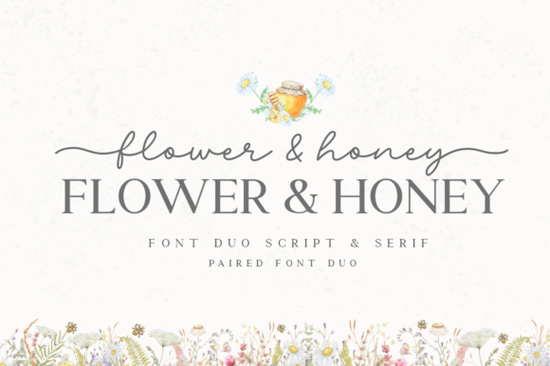
If you're looking for a cheerful, hand-lettered duo that brings warmth and personality to your designs, the Flower & Honey Font might be just what your creative toolkit needs. Designed as a complementary pair, these fonts work beautifully together or on their own making them versatile for everything from greeting cards and branding to printable wall art and product packaging.
What sets this set apart is its thoughtful pairing: one font leans slightly bolder and more structured, while the other offers a lighter, breezy script. Both include swashes, alternate characters, and decorative glyphs accessible through PUA encoding, so you don’t need advanced design software to unlock their full potential. Just install the font, open your favorite program (like Canva, Adobe Illustrator, or even Word), and start experimenting with the extras built right in.
Who is this font best suited for?
The Flower & Honey Font shines in projects that call for approachability and charm. Think:
- Small business owners creating logo mockups or social media graphics
- Crafters designing vinyl decals, embroidery patterns, or sublimation prints
- Print-on-demand sellers personalizing mugs, tote bags, or journals
- Teachers making classroom decor or homeschool materials
Because the pair balances legibility with flair, it’s especially useful when you want something friendly but not overly fussy. It avoids the “too-cute” trap some script fonts fall into, offering enough structure to remain readable at smaller sizes.
How does it compare to other handwritten fonts?
If you’ve used fonts like Coconut Bay or Honeymoon Handwriting, you’ll notice Flower & Honey has a slightly more grounded baseline and consistent letter height, which helps with alignment in multi-line text. Unlike ultra-loopy scripts, it maintains clarity even in short paragraphs great for quotes or product descriptions.
For those who love romantic or botanical themes, it pairs well with designs featuring florals, bees, honey jars, or cottagecore aesthetics. And if you enjoy mixing typefaces, try combining it with clean sans-serifs for contrast, or layer it with textured backgrounds for depth.
What can you actually make with it?
Thanks to its dual-font structure and built-in alternates, Flower & Honey adapts easily across mediums:
- Wedding stationery: Use the lighter font for names and the bolder one for dates or RSVP details.
- Branding for cafes or bakeries: The warm, organic feel complements food-related businesses.
- DIY gift tags: Add a swash to the first letter of someone’s name for instant customization.
- Printable planners: Alternate characters help avoid repetitive-looking headers.
Because it includes PUA-encoded glyphs, you can access stylistic alternates without switching fonts mid-design a huge time-saver when batch-producing items for Etsy or local markets.
Tips for getting the most out of this font pair
Start simple. Use one font for headlines and the other for subheadings before diving into swashes. Many beginners over-decorate, which can reduce readability. Instead, reserve flourishes for key words or standalone phrases.
Also, test print your designs. Some delicate swashes may disappear on low-resolution printers or small-format items like stickers. Adjust tracking (letter spacing) slightly if letters feel too cramped most design apps let you tweak this easily.
Before you download, ask yourself:
If you answered yes, Flower & Honey could become a go-to in your font library especially for spring collections, baby announcements, or any project where kindness and cheer are part of the message.